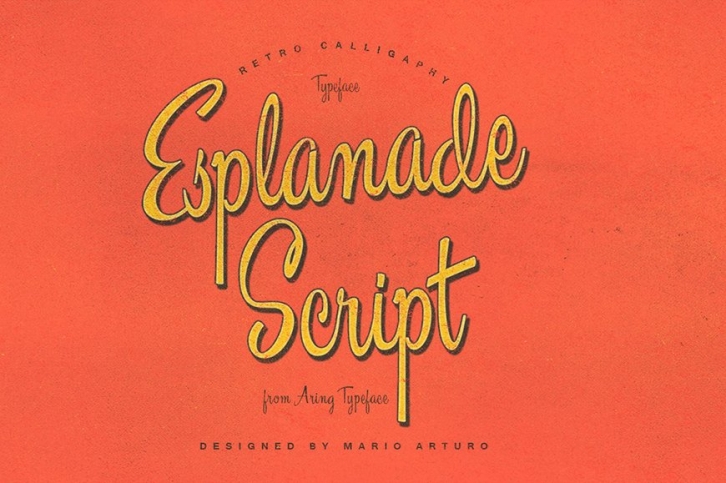
High quality script font with multilingual support and a large number of special characters.
Designed by Mario Arturo and Måns Grebäck, this hand-crafted typeface works great in logotypes and for titles and slogans.